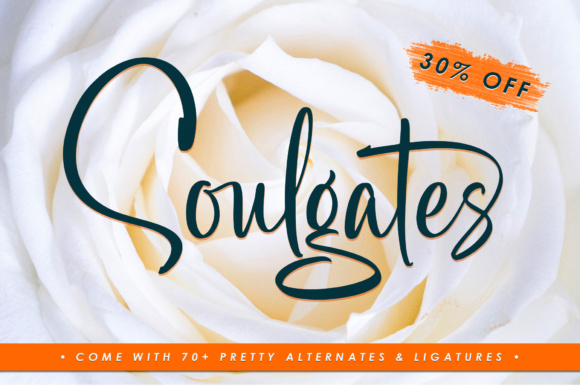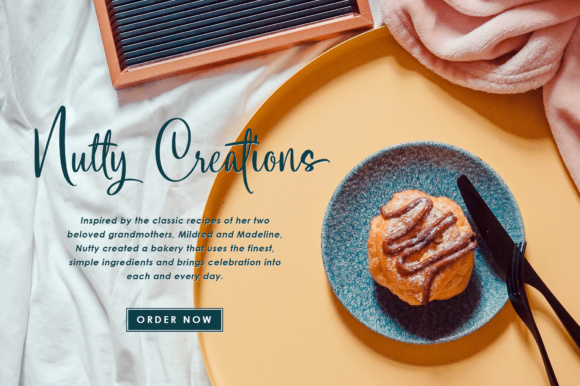
About Soulgates Font
Soulgates is a brush script typeface. Every single letter contains beautiful character alternates. Soulgates is a classy font that will give your projects a modern and unique look.
Soulgates can be used for various purposes such as logotype, branding, magazines, websites or blog headlines, packaging, branding, quotes, invitation cards, greeting cards, business cards, and much more!